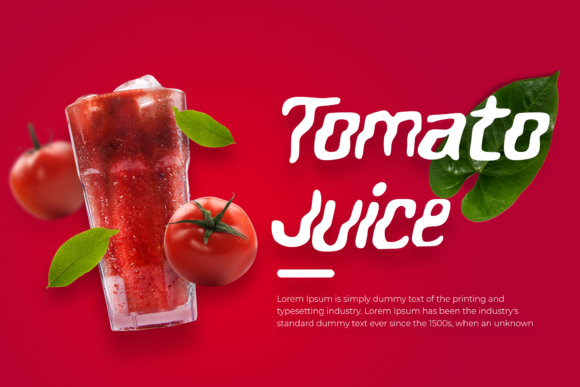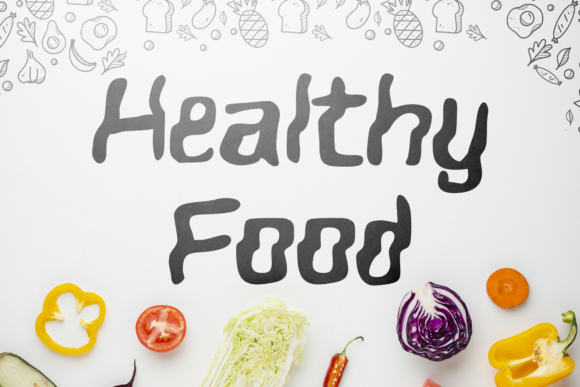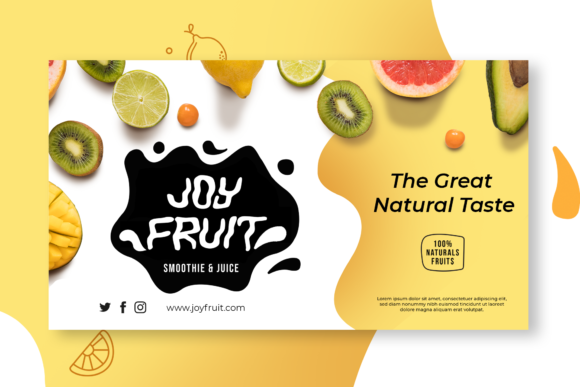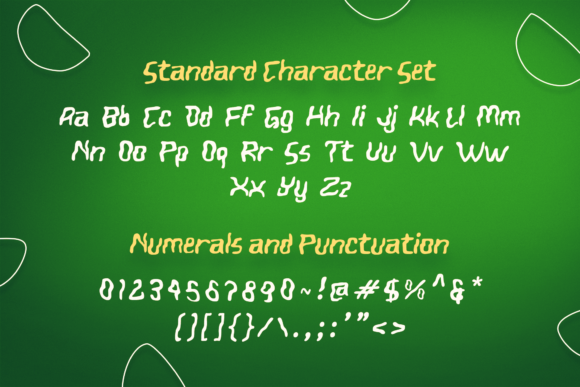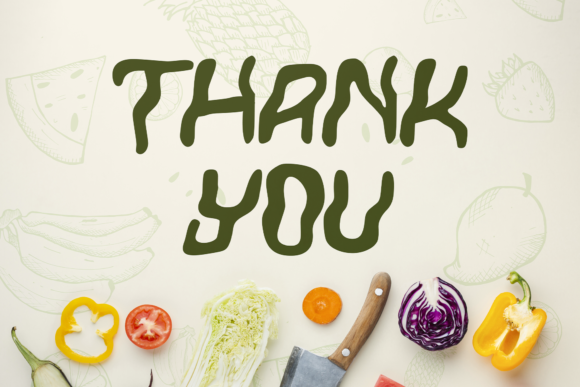
Fresh-Everyday Font – Free Download
Introduction to Fresh-Everyday Font
Fresh-Everyday is a cute and quirky display font.
It will add an incredibly joyful touch to your designs Add this beautiful display font to each of your creative ideas and notice how it makes them stand out.
Key Features of Fresh-Everyday Font
Why Choose Fresh-Everyday Font?
Fresh-Everyday Font offers exceptional quality and versatility, making it a valuable addition to your design toolkit. Whether you’re creating for personal projects or commercial use, Fresh-Everyday Font delivers professional results.